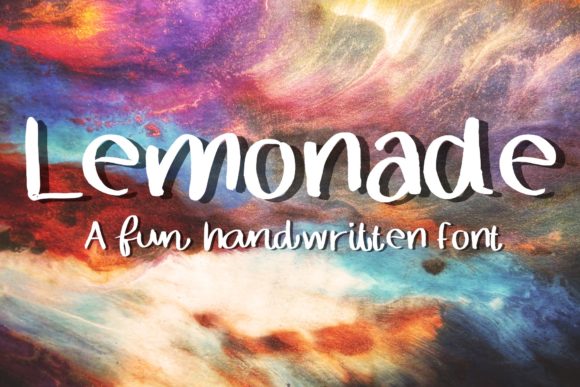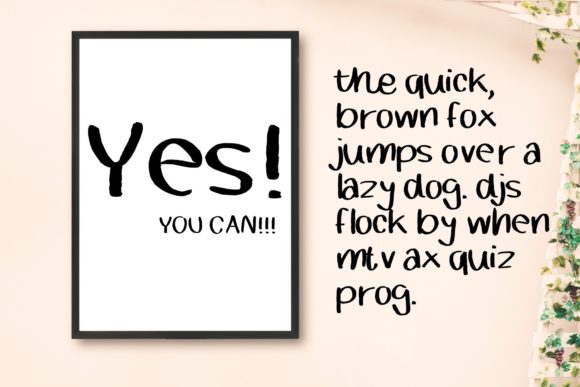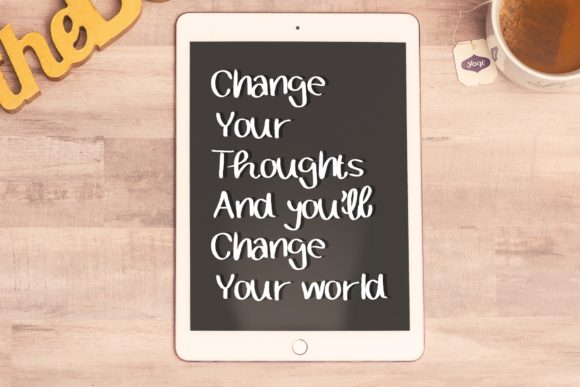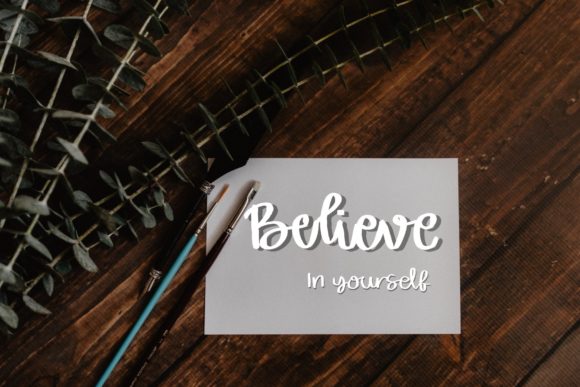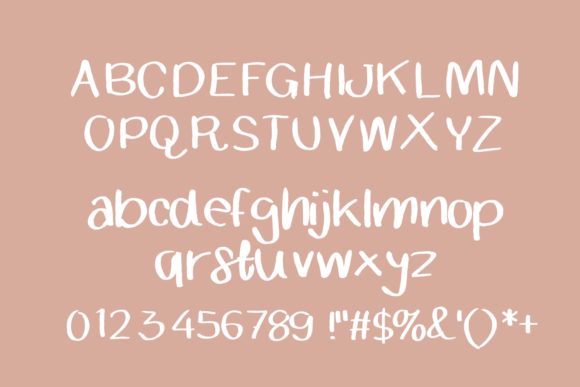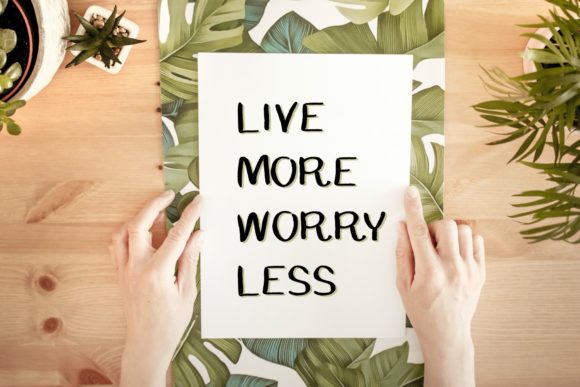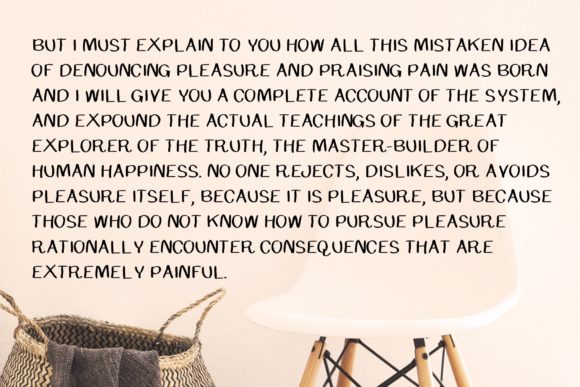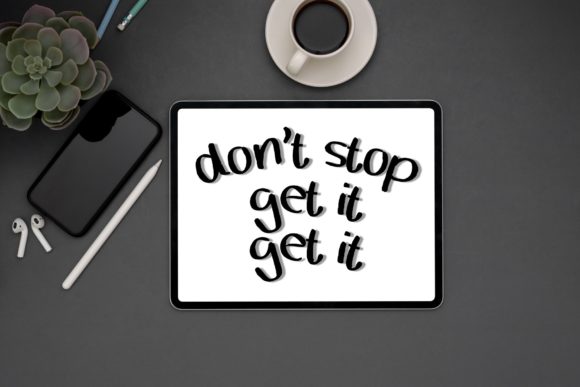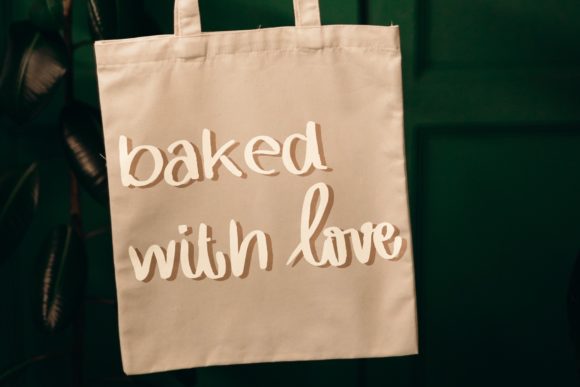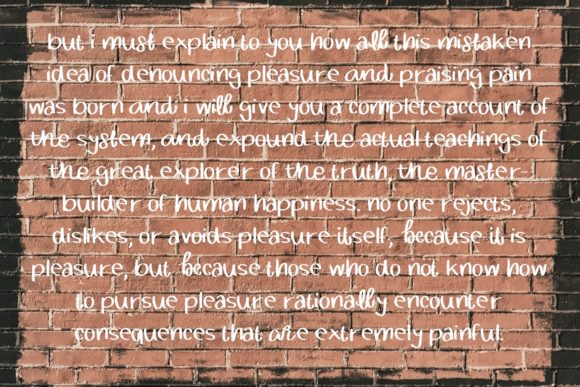
Lemonade Font
About Lemonade Font
Lemonede is a sweet and friendly handwritten font. Fall in love with its incredibly versatile style and use it to create gorgeous wedding invitations, beautiful stationary art, eye-catching social media posts, and much more!